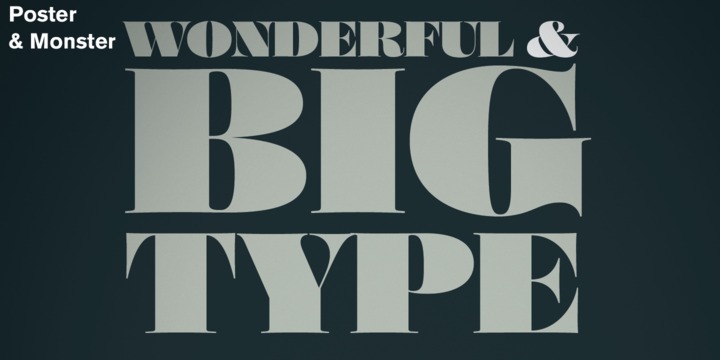
Poster by Íñigo Jerez.
Finally, the long awaited full version of Poster, a recreation of Bodonian/Didot excess with which Íñigo Jerez began his collaboration with Type-Ø-Tones in 2008. Now the family has been finely improved with more styles. The family consists of: Poster and Poster Italic, a bolder version named Poster Monster and Poster Monster Italic– a virtuoso exercise in counter forms and contrast to be used with power unleashed, as the name suggests–; and finally Poster Display, Poster Display Italic, Poster Display Monster and Poster Display Monster Italic: four styles designed for even bigger sizes, with more contrast and splendor.